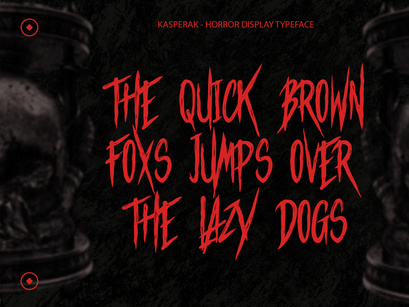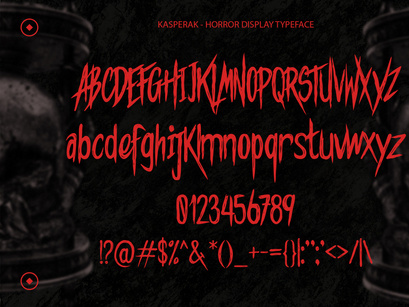
Kasperak - Horror Display Typeface
Kasperak is a display font featuring horror, scary, gothic characters that seem to dance along the baseline. Add this font to your most creative ideas, and notice how it makes them stand out!